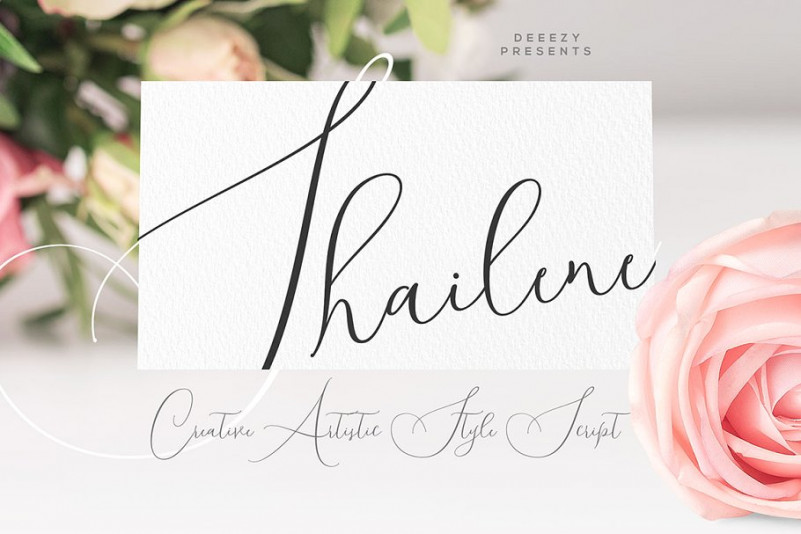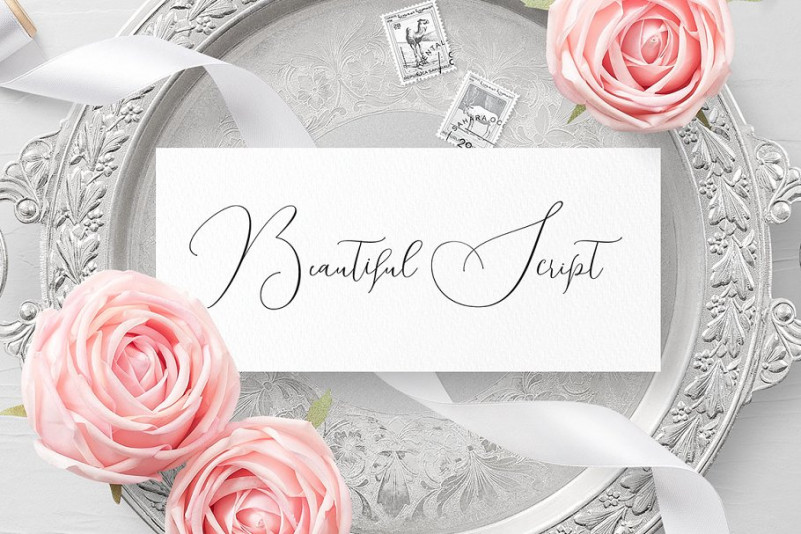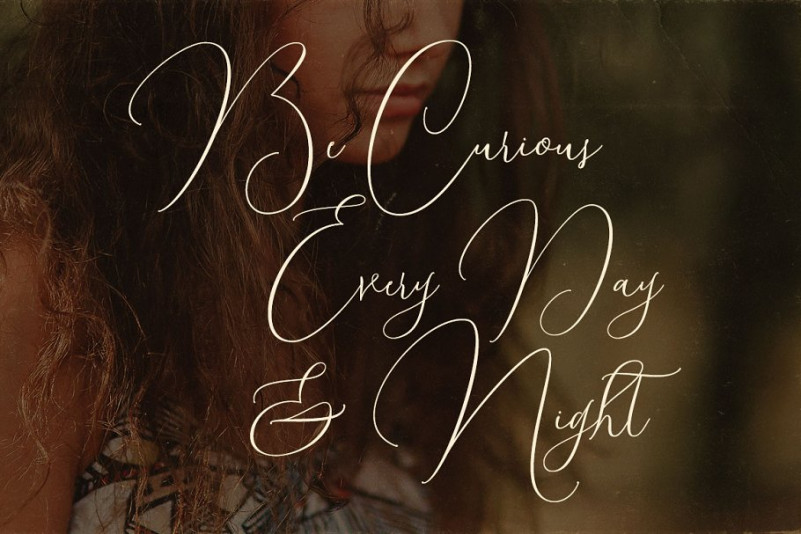
Shailene Script Font
Thin line and handwritten or creative style script font for your new projects. With multi language support and lot of stylistic alternates & swashes. Enjoy